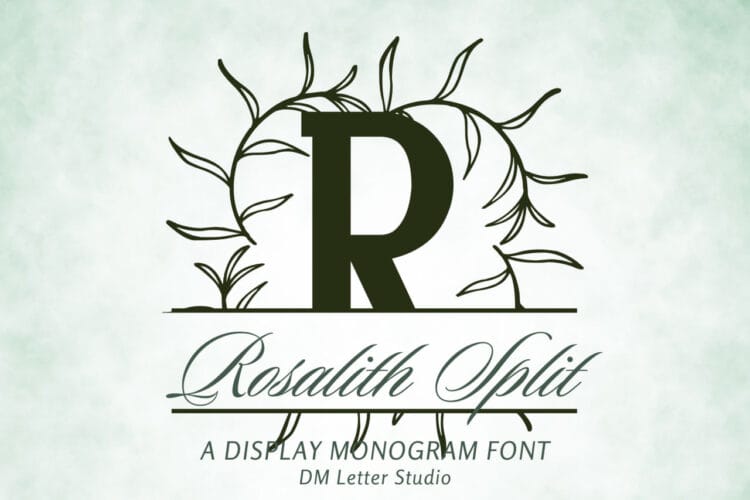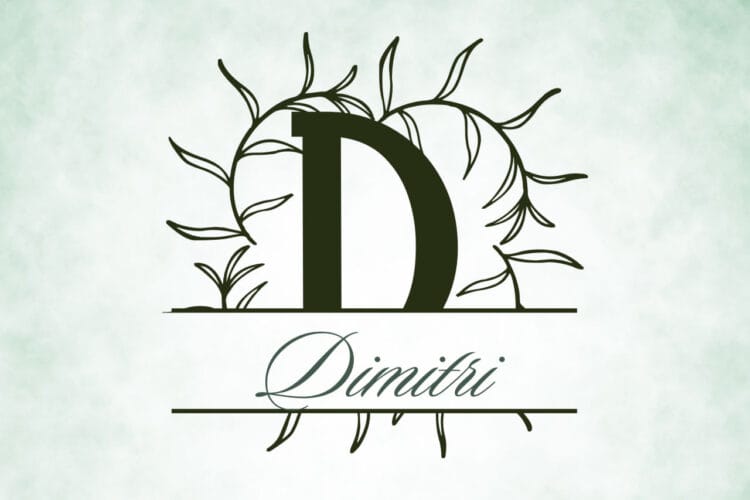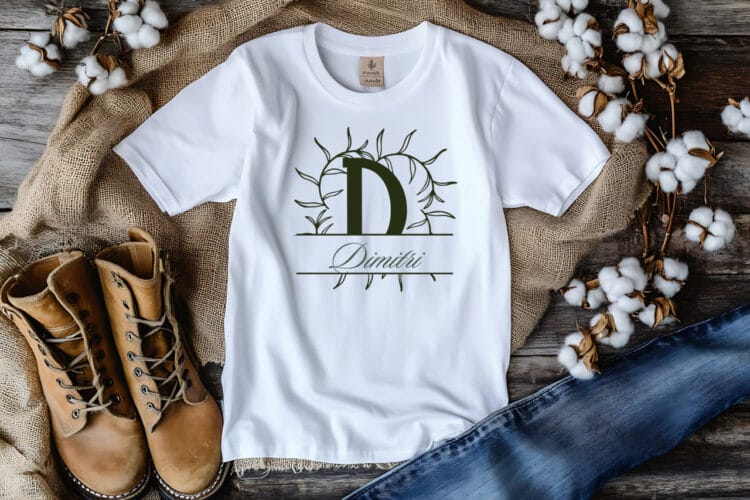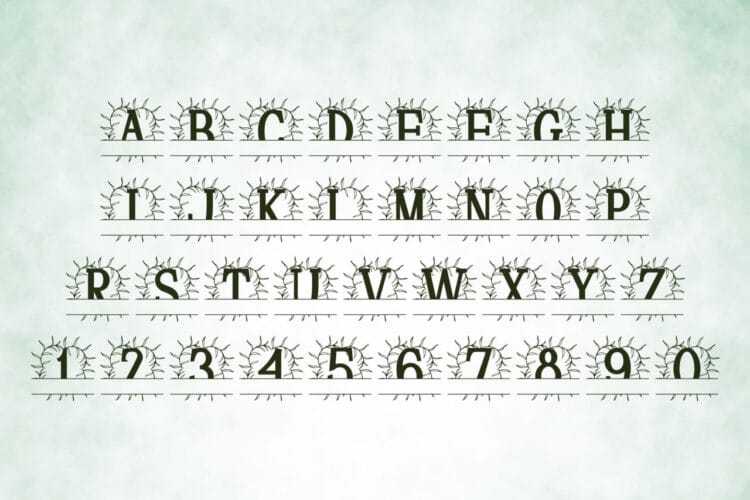
Meet Rosalith Split Monogram Font
Rosalith Split Monogram transforms initials into refined floral emblems with a clean split center for names or dates. Inspired by rose forms and soft ornamental balance, the design feels romantic, elegant, and timeless. Each letter stays clear at any size, so small tags remain readable while larger designs feel graceful and ceremony-ready. Use Rosalith Split for wedding suites, anniversaries, boutique logos, stationery, keepsake gifts, and luxury packaging. As a result, your monograms feel personal, meaningful, and beautifully composed.
Fast layouts with the Rosalith Split Monogram Font
Start with a bold initial and place the name or date in the split center. After that, keep extra text minimal so the rose-inspired form remains the focus. Because Rosalith Split holds its shape at small sizes, labels, stickers, cards, and favor tags stay clean and readable. In addition, it pairs beautifully with soft serifs, light scripts, or clean sans serifs for supporting text. Finally, save color palettes like blush and ivory, antique rose and linen, sage and cream, or charcoal and soft gold to reuse across collections.
Creative uses and quick wins
Wedding monograms, invitation covers, and ceremony signage
Place cards, table numbers, and favor tags
Logo seals, certificates, and boutique brand marks
Packaging labels for candles, soap, perfume, and gift boxes
Design tips for Rosalith Split Monogram Font
Keep the monogram as the hero and use a separate font for any text outside the split area. Also, give it enough breathing room so fine floral details stay crisp at smaller sizes. For a premium finish, try foil stamping, embossing, or letterpress on thick or textured stock. Finally, export at 300 DPI for print and at 2× size for web so edges remain smooth everywhere.